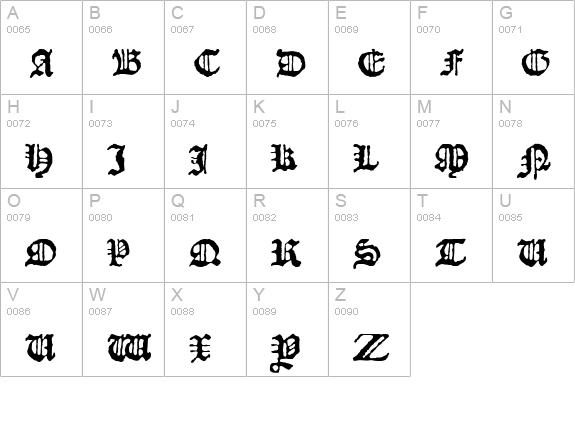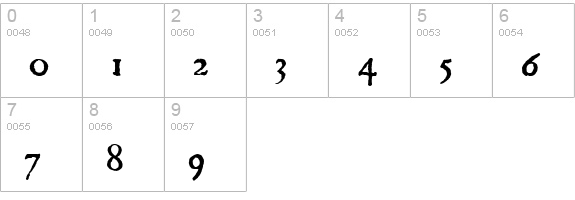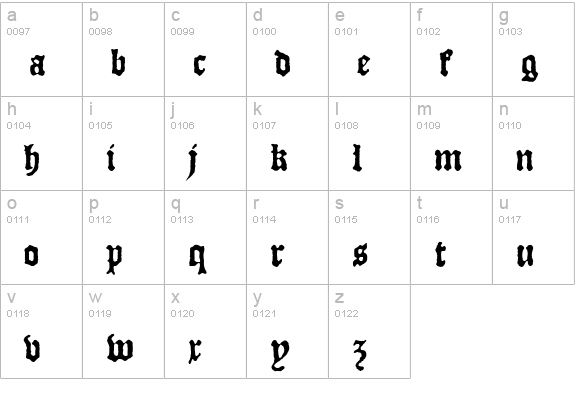
JSL Blackletter Font Details
Introducing JSL Blackletter, a captivating and bold font that embodies the essence of timeless elegance and artistic flair. This stunning typeface effortlessly marries the rich heritage of traditional blackletter scripts with a modern twist, creating a truly unique and eye-catching design. With its intricate and elaborate letterforms, JSL Blackletter commands attention and adds a touch of sophistication to any project. Whether used for logos, headlines, or body text, this font exudes a sense of authority and distinction that is sure to leave a lasting impression. But what sets JSL Blackletter apart is not just its impeccable aesthetics – it is also the fact that it is available for free. That's right, you heard it correctly. JSL Blackletter can be freely downloaded at FontsMarket.com, allowing designers, artists, and enthusiasts alike to unleash their creativity without any financial constraints. With its extensive character set and versatile nature, JSL Blackletter offers endless possibilities for customization and personalization. Its bold strokes and intricate details make it perfect for projects that require a touch of vintage charm, gothic ambiance, or even a sense of mystery and allure. Whether you are designing a logo for a medieval-themed event, creating an album cover for a heavy metal band, or simply looking to add a touch of elegance to your personal blog, JSL Blackletter will undoubtedly elevate your designs to new heights. So why wait? Download JSL Blackletter today from FontsMarket.com and unlock the power of this remarkable font. Embrace its captivating allure, make a statement, and let your creativity flow freely with JSL Blackletter.